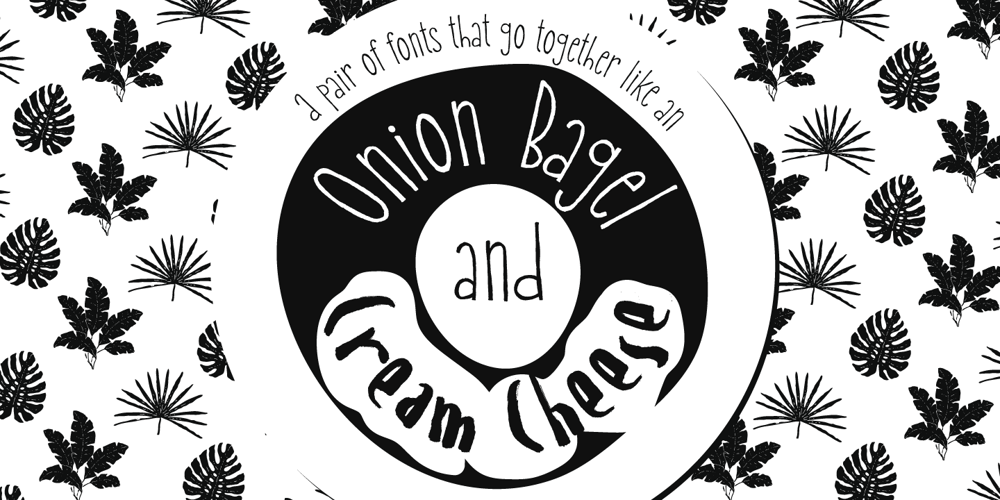
Cream Cheese
Cream Cheese font
Cream Cheese Font Family was designed by David Cohen, Dathan Boardman and published by Rocket Type. Cream Cheese contains 2 styles and family package options. Cream Cheese and Onion Bagels go together like apples and oranges. Taste this brand new font duo from Rocket Type! Great for branding, broadcast, and childrens books!